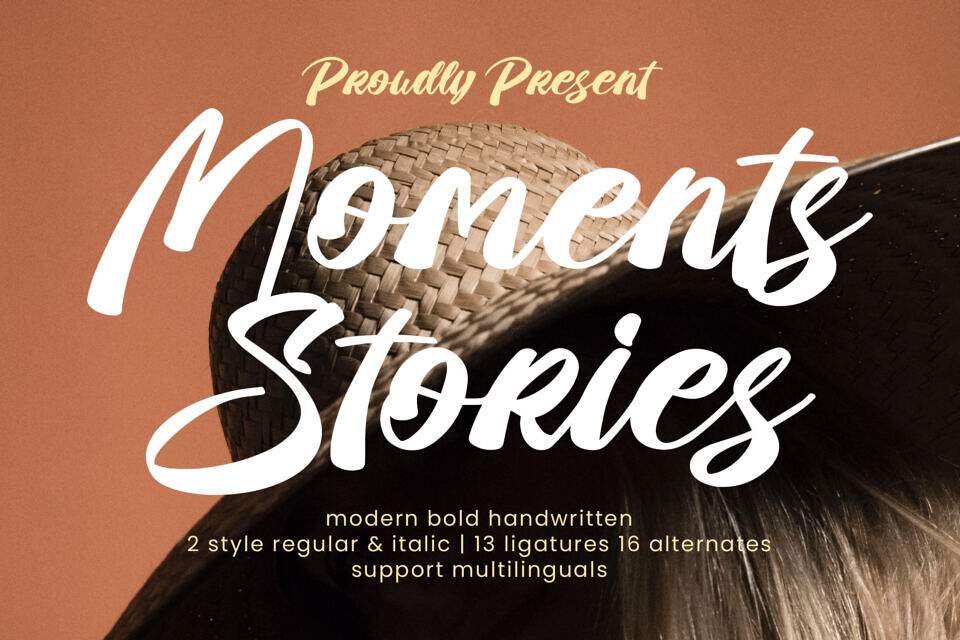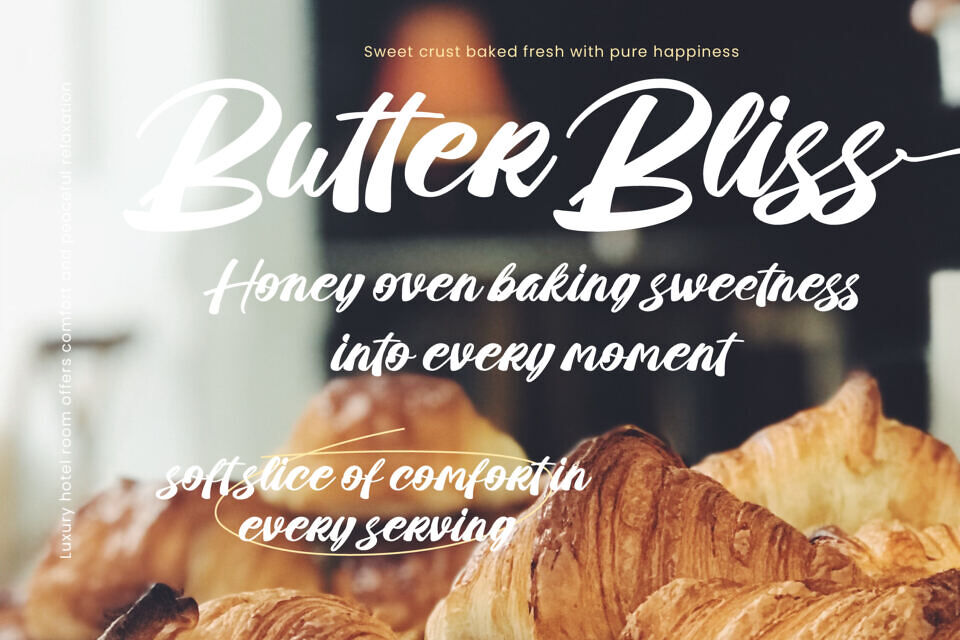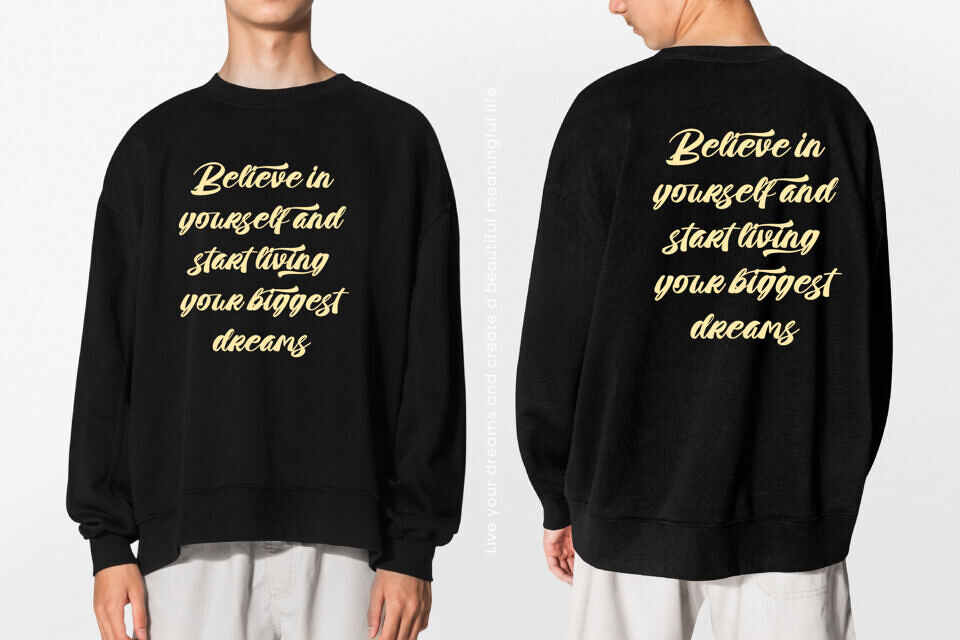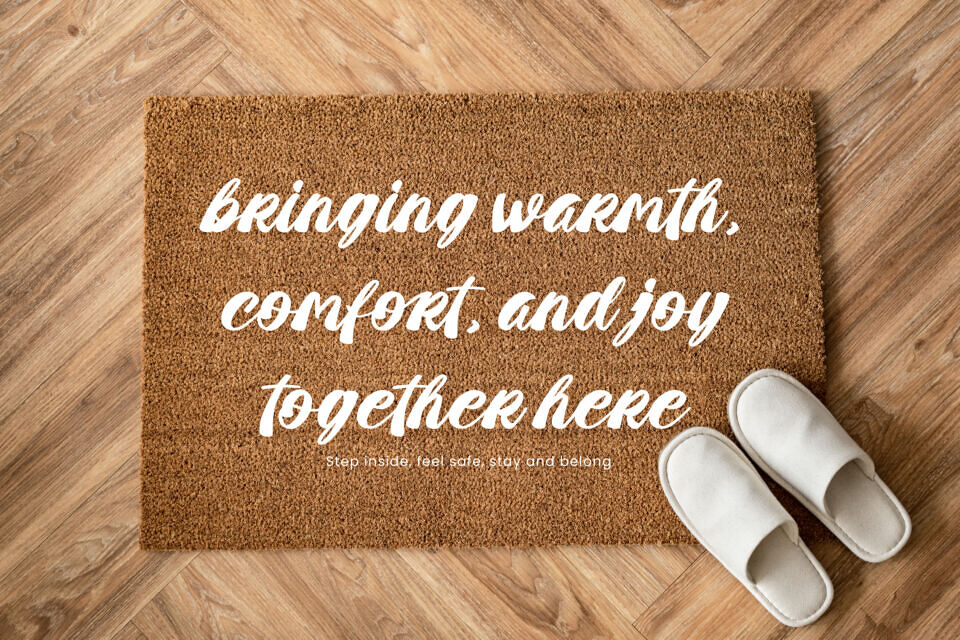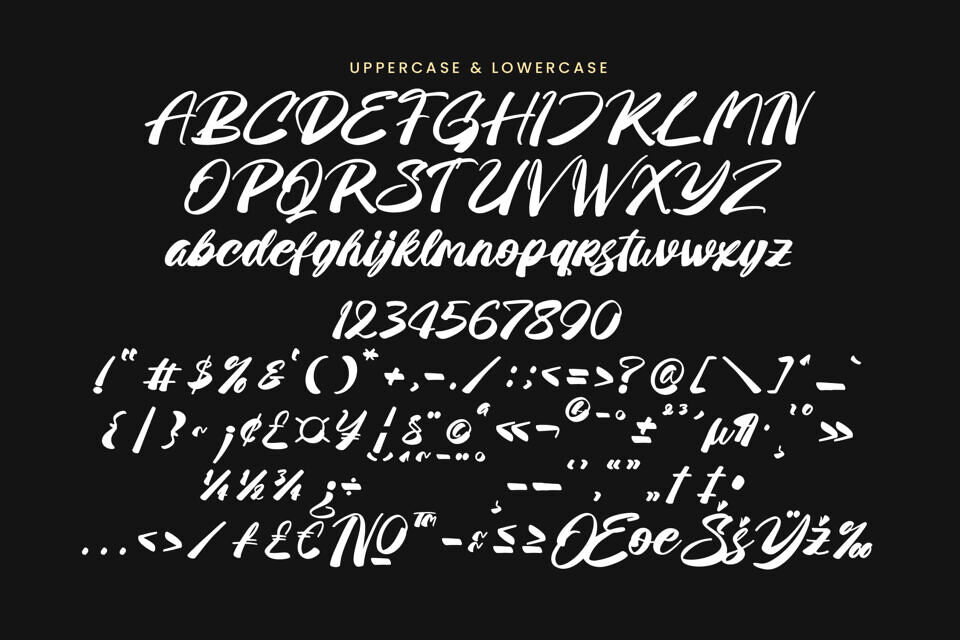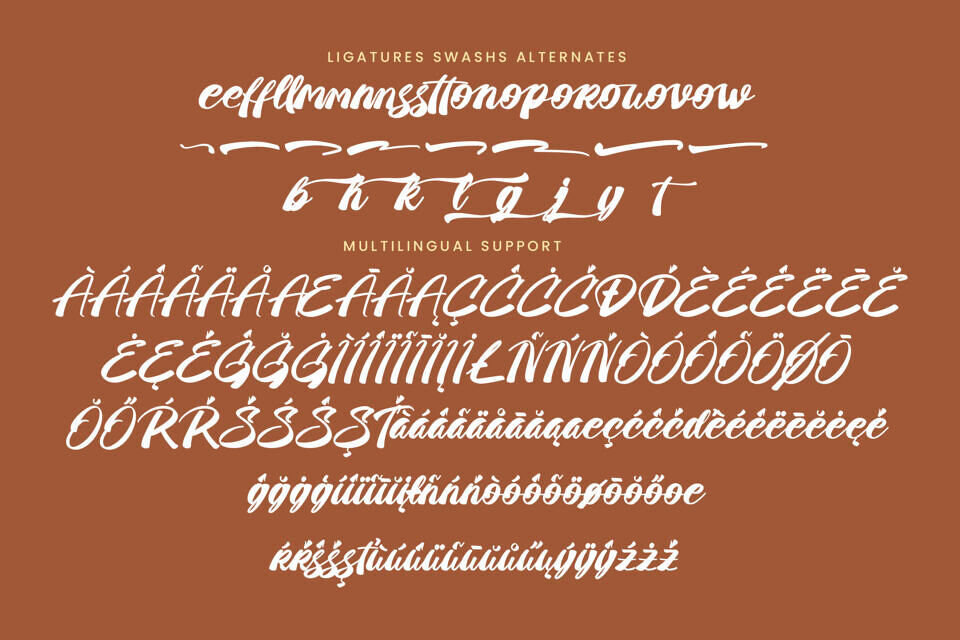
Moments Stories is a modern bold handwritten font that combines confident brush-inspired strokes with smooth flowing curves. Featuring stylish ligatures and beautifully crafted alternates, this font offers flexibility for designers seeking a handwritten font with a polished and contemporary feel. Its bold character makes it ideal for standout branding, eye-catching headlines, and expressive visual storytelling.